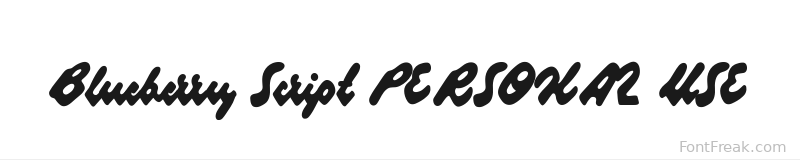
Blueberry Script PERSONAL USE
Blueberry Script PERSONAL USE is a captivating handwritten font designed by Mans Greback, falling into the script category. This font features fluid and graceful strokes that evoke a sense of warmth and personality. With a moderate stroke weight and a balanced contrast, Blueberry Script feels both inviting and stylish. The letters are well-spaced, allowing for easy readability while maintaining an elegant appearance, making it an excellent choice for various creative projects.
This font shines in numerous applications. It is particularly well-suited for wedding invitations, where its romantic style can capture the essence of the occasion. Additionally, it can elevate the visual appeal of restaurant menus, giving them a touch of sophistication and charm. Graphic designers might find it useful for crafting unique movie posters, where the script's flowing nature can effectively convey emotion and narrative. Furthermore, small business owners can utilize this font for branding materials, such as logos and promotional flyers, adding a personal touch that resonates with customers.
What sets Blueberry Script apart is its unique blend of elegance and approachability. It captures the essence of handwritten communication while maintaining a polished look, making it versatile for various design needs. For anyone in search of a charming and free option, the Blueberry Script PERSONAL USE font free download offers an excellent solution to elevate creative endeavors.